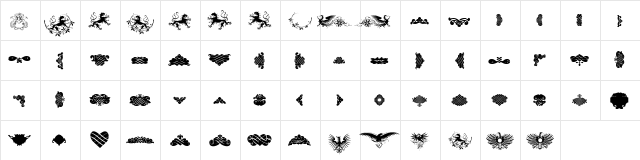
Unpublished Ornaments Regular
Design Context for Unpublished Ornaments Typeface
Unpublished Ornaments brings ornamental detail and strong personality to headlines and identities, where visual impact matters more than quiet functionality.
Font Pairing: Pair with a clean neutral sans-serif for body copy to let Unpublished Ornaments's character lead without overwhelming the composition.
Pro Tip: Treat Unpublished Ornaments as the centrepiece of your typographic hierarchy. One strong heading set in a decorative face can carry an entire layout.